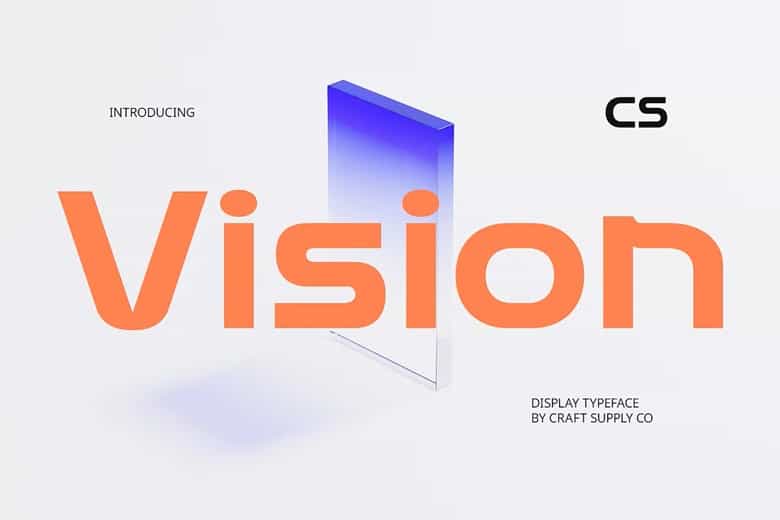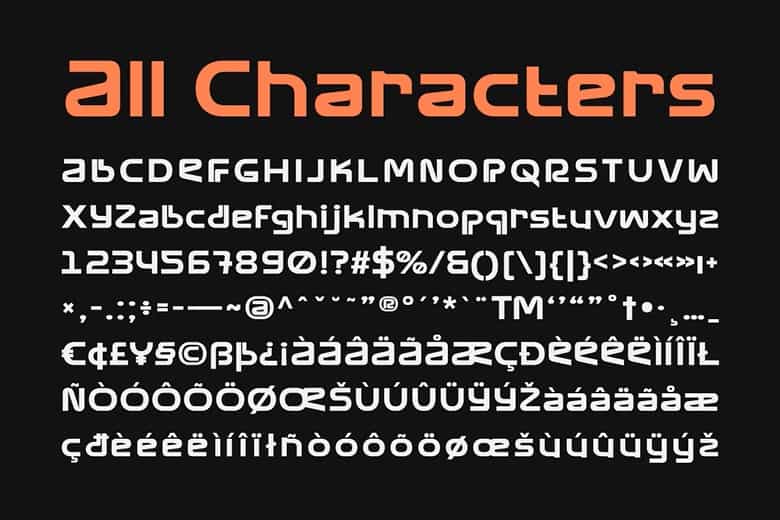
CS Vision is a new futuristic techno style bold display sans-serif font with precise geometric construction. It presents a sharp, clean, modern and high-tech aesthetic best suited for digital-forward projects requiring a cutting edge look.